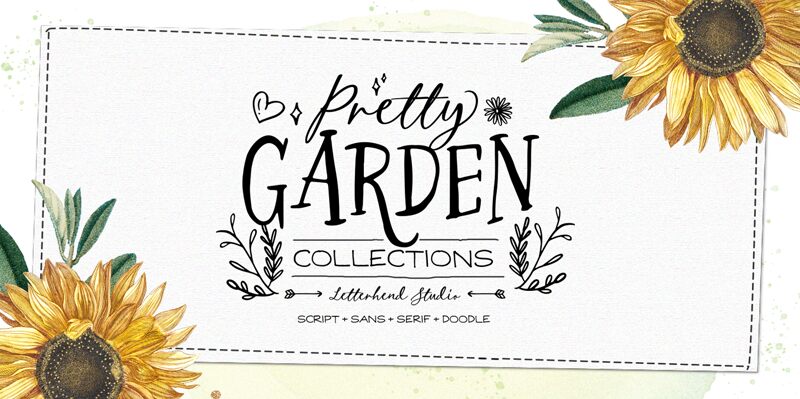
Pretty Garden Serif, crafted by Letterhend Studio, is a captivating all-caps handwritten font with a block letter style. Its semi-light weight and semi-condensed width make it perfect for various projects that demand an elegant touch.
From wedding invitations to fashion editorials, this font adds a sophisticated charm that effortlessly stands out. The subtle curves and precise strokes of Pretty Garden Serif lend themselves beautifully to branding materials, packaging designs, and even blog headers.
Let this enchanting typeface transport your audience to a whimsical world where beauty blossoms in every word.